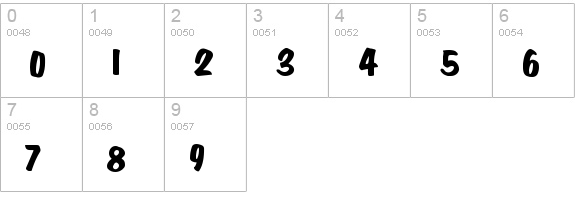
Big Nib Normal Font Details
Big Nib Normal is the standard, neutral variant in the Big typeface family \xE2\x80\x94 well suited to general body text, paragraphs, and standard typographic work.
Big Nib Normal font is a bold and eye-catching typeface that exudes personality and charm. With its thick strokes and slightly quirky design, this font is sure to make a statement in any project it is used in. Perfect for headlines, titles, or any text that needs to stand out, Big Nib Normal font is a versatile choice for a wide range of design applications. Best of all, Big Nib Normal font is completely free to download at FontsMarket.com. This means you can easily add this unique font to your collection without any cost. Whether you're a designer looking to add a playful touch to your work or just someone who appreciates a fun and distinctive font, Big Nib Normal is a fantastic choice that won't break the bank. Download it today and start incorporating its bold style into your projects!